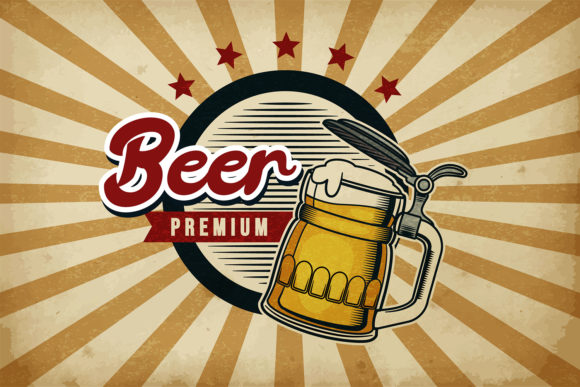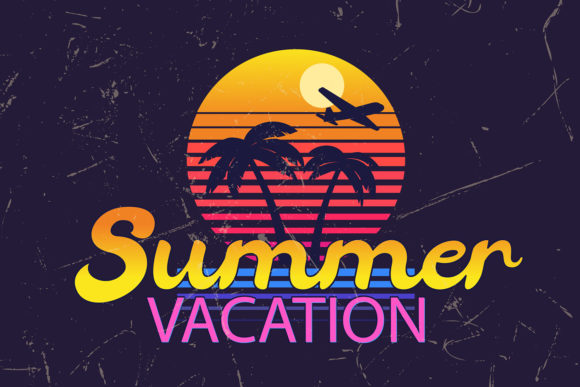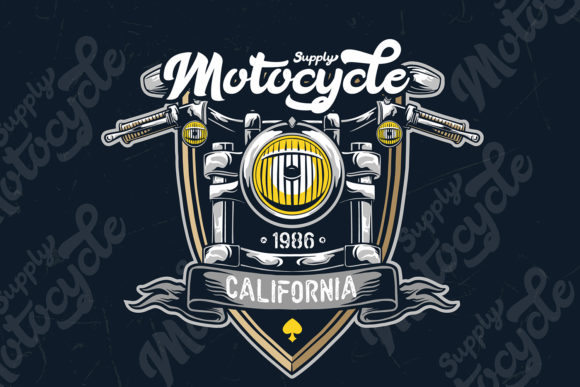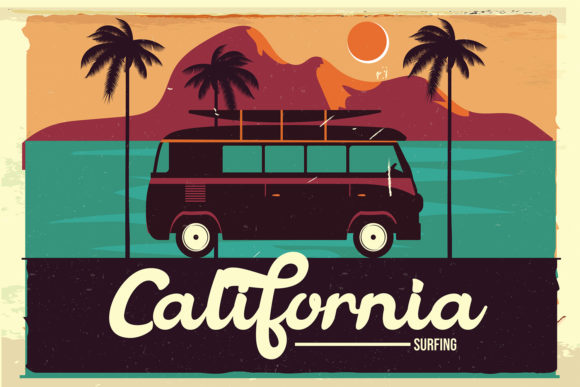
HomeScript FontsVintage Legends Font Script Fonts Vintage Legends Font FacebookXPinterestWhatsApp Vintage Legends Font Poster 2 Vintage Legends Font Poster 3 Vintage Legends Font Poster 4 Vintage Legends Font Poster 5 About Vintage Legends Font Vintage Legends is a handwritten retro calligraphy style font. Get inspired by its classic old-school feel! DOWNLOAD ON CREATIVE FABRICAThis font is sold and delivered by Creative Fabrica. Font Canyon may earn a commission if you buy through this link. People also explored Happy Daisy Font Truelove Font Unlimits Font Rayneiva Font Dingy Font Takeme Font Alonelast Font Heart Locker Font Cabrito Sans 279 0 TagsVintage Legends Font Previous articleQueny FontNext articleButterfly Font LEAVE A REPLY Cancel reply Comment: Please enter your comment! Name:* Please enter your name here Email:* You have entered an incorrect email address! Please enter your email address here Website: Save my name, email, and website in this browser for the next time I comment. Personal Use Free Bally Girl Personal Use Free Read more about this font Satori Personal Use Free Read more about this font Dealerplate California Personal Use Free Read more about this font Kitsor Rauttie Personal Use Free Read more about this font BLOG Free vs Paid Fonts: Why Investing in Premium Fonts Is Worth It Free vs Paid Fonts: Why Premium Fonts Are Worth It in 2025 The debate of free vs paid fonts continues in the design world. While... How to Install and Use Fonts on Windows, macOS, and Web Projects To increase your work productivity, choose the most readable fonts. Modern Sans-Serif Fonts That Brands Love in 2025